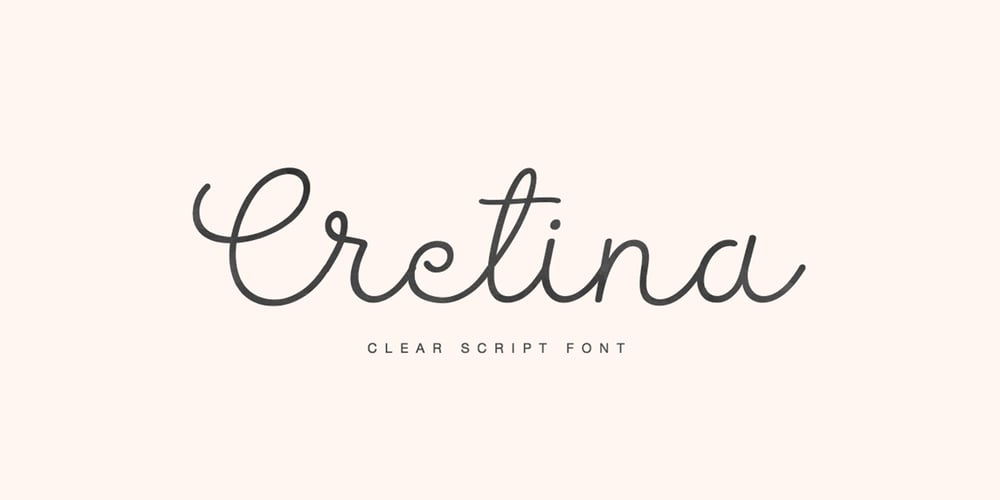
Cretina
Cretina font
Cretina Font Family was designed by Dmitrii Chirkov and published by Supfonts. Cretina contains 2 styles and family package options. Cretina is amazing clear lettering font, every single letters have been carefully crafted to make your text looks beautiful. With lettering script style this font will perfect for many different project ex: quotes, blog header, poster, wedding, branding, logo, fashion, apparel, letter, invitation, stationery, etc. FEATURES: Cretina OTF & TTF Multilingual support Alternates / Swashes / Ligatures Thanks for looking. Check out my blog: instagram.com/media.lab.co pinterest.com/dmitriychirkov7